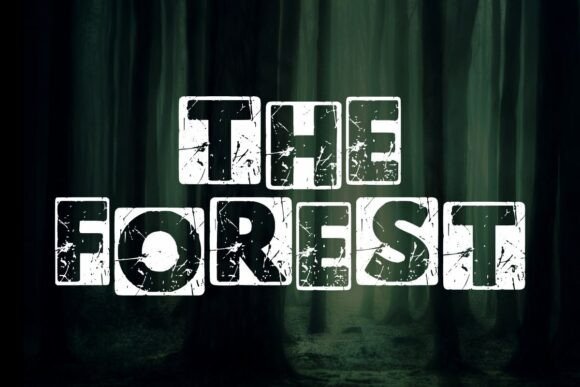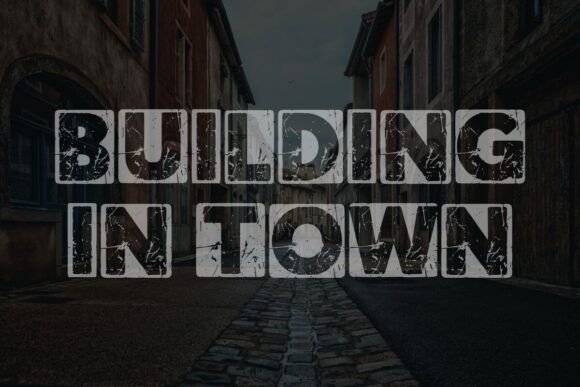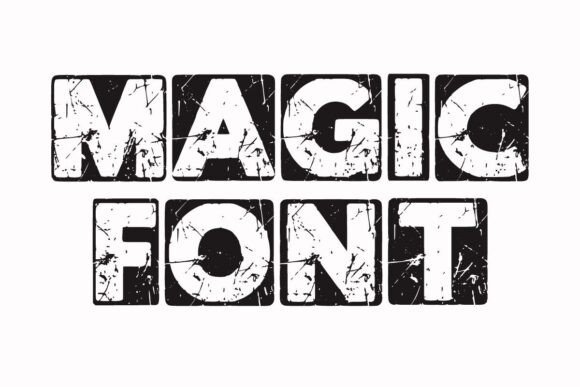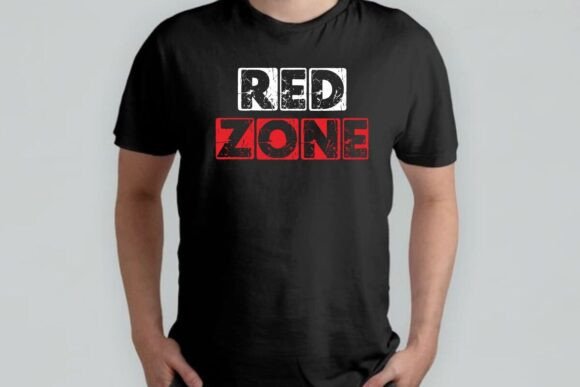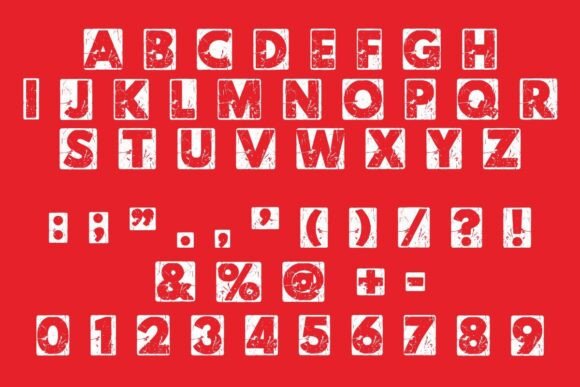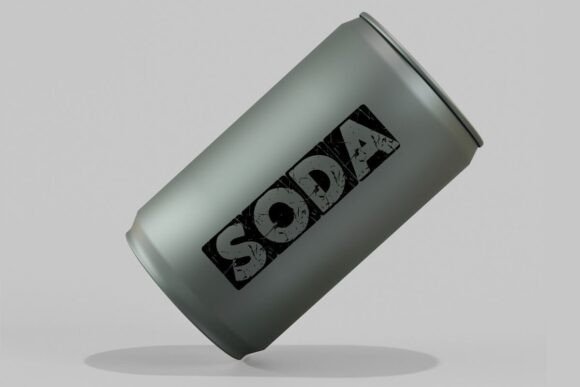
The Ultimate Game-Changer for Designers: Bloody Square Font
Have you ever sat in front of your computer, staring at a blank canvas, desperate for inspiration to strike? You know that feeling when the creative juices are flowing, and the ideas start pouring in? That’s the moment when the right tool can make all the difference. For designers, the right font can be the key to unlocking a truly unique and captivating visual identity.
Enter the Bloody Square Font, a rough texture display font designed to elevate your creative ideas to new heights. With its masterful design, this font is perfect for adding a touch of rugged sophistication to your designs. Whether you’re working on a logo, a poster, or a website, the Bloody Square Font is sure to bring a sense of depth and emotion to your work.
Bloody Square Font Key Features
- Unique Characteristics: The Bloody Square Font has a unique, distressed design that gives it a gritty, edgy feel. The font is perfect for creating bold, eye-catching headlines and titles.
- Character Set: The font includes a comprehensive character set, including uppercase and lowercase letters, numbers, and punctuation marks, making it suitable for a wide range of applications.
Bloody Square Font Review
First off, I have to say that the Bloody Square Font has some great qualities that make it a decent addition to any designer’s toolkit. ✨ The font’s bold and edgy design is perfect for projects that need a bit of an attitude. It’s also highly customizable, allowing you to tweak the color, size, and spacing to fit your needs. The font’s versatility makes it a great choice for logos, headlines, and even body text in certain situations.
One of the standout features of Bloody Square Font is its high level of detail. ✨ The font’s designer has clearly put a lot of thought into the design, with intricate details that make it stand out from other fonts. The font’s unique style is sure to grab attention and make your designs pop.
While the Bloody Square Font has a lot going for it, there are a few limitations to be aware of. ⚠️ One of the main issues is that the font can be a bit overwhelming in certain contexts. Its bold design can be too much for smaller text or subtle designs, and it may need to be paired with a more neutral font to balance it out.
- May be too bold for smaller text or subtle designs
- Can be overwhelming in certain contexts
- May require pairing with a neutral font
Overall, I’d say that the Bloody Square Font is a solid choice for designers who need a bold and edgy font. While it may have some limitations, its high level of detail and versatility make it a great addition to any toolkit. With a bit of creativity and experimentation, you can get some amazing results with this font.
For optimal results, use the Bloody Square Font in bold or italic styles to add emphasis to your text.
Experiment with different font sizes and colors to create a striking visual effect.
The Bloody Square Font is ideal for:
- Horror-themed designs
- Edgy marketing materials
- Dark and moody artwork